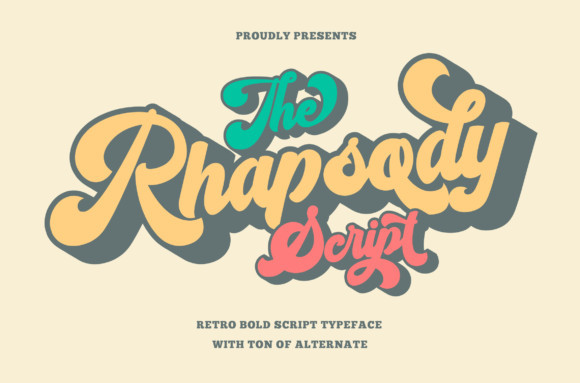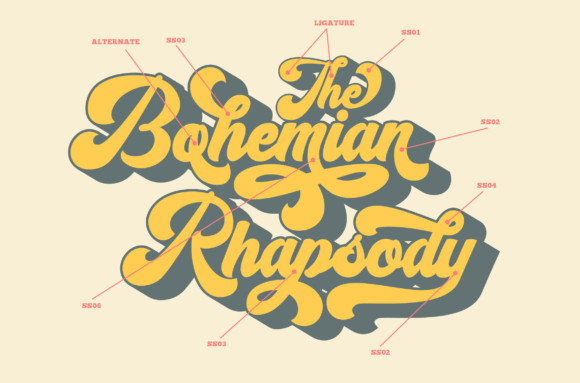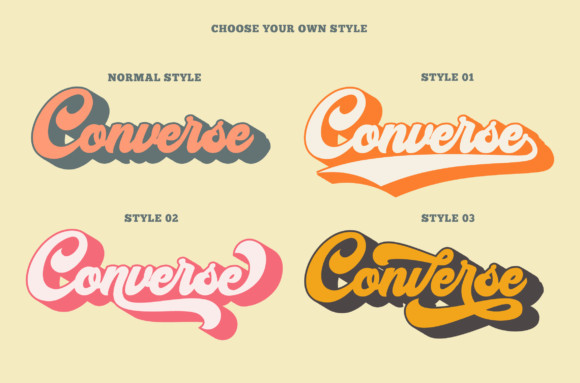
The Rhapsody Font
The Rhapsody FontThe Rhapsody is a bold and eye-catching display font. Use it to make your ideas even more realistic and create spectacular designs!